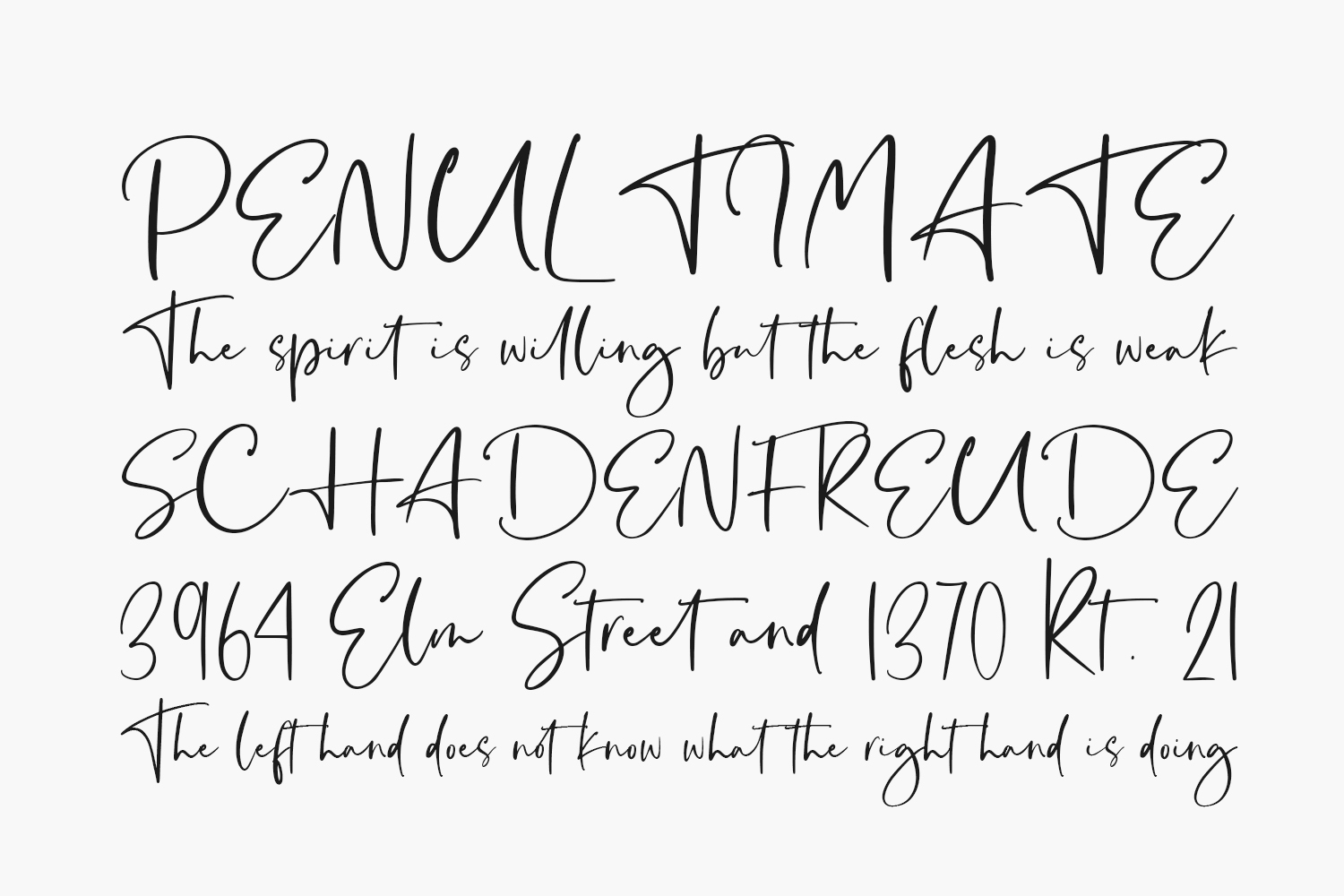
Cinemathic Visualation Free Font is an elegant script font with a contemporary atmosphere and impeccable form, inspired by timeless classic calligraphy.
Designed by Fikryal studio